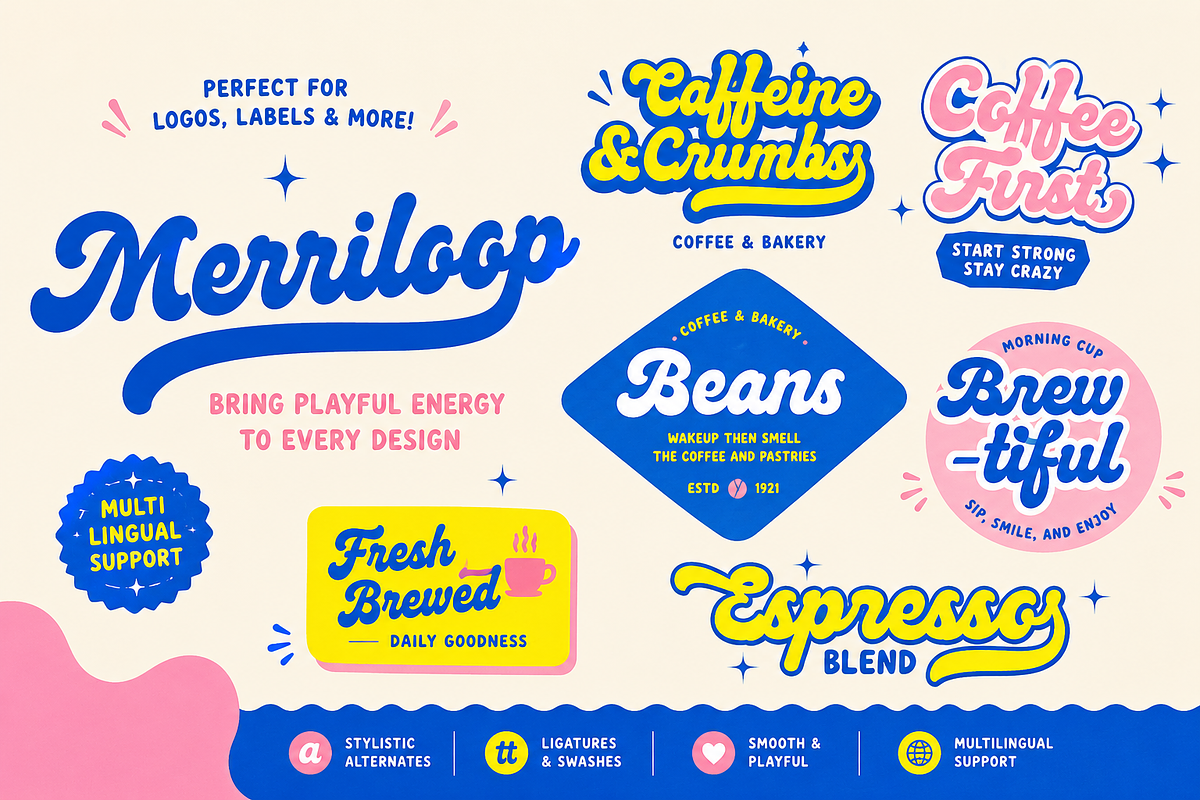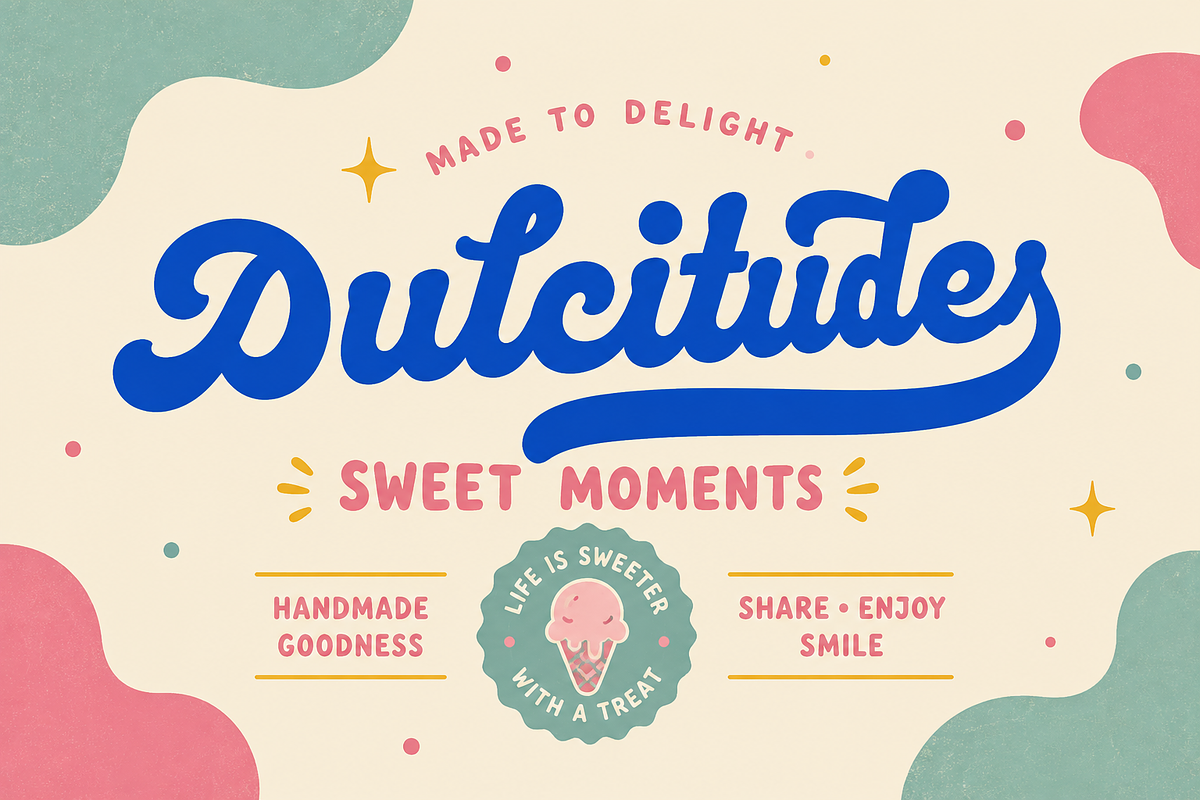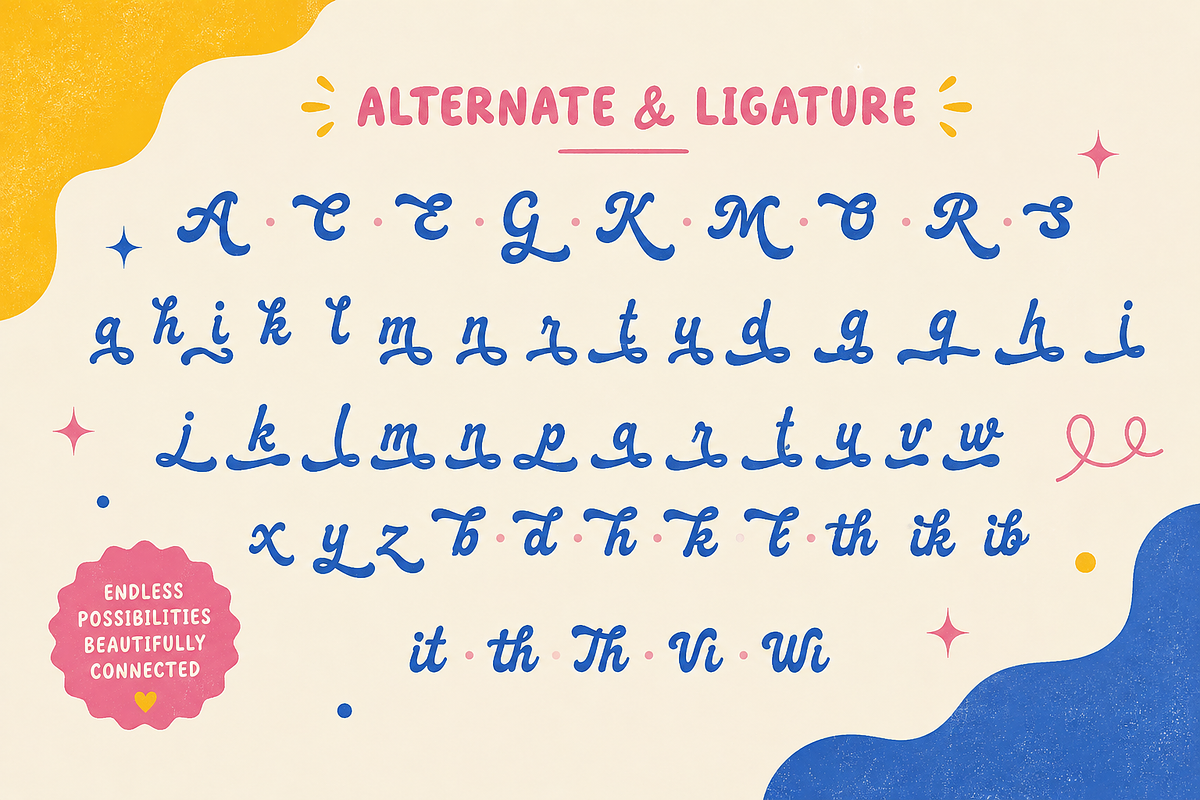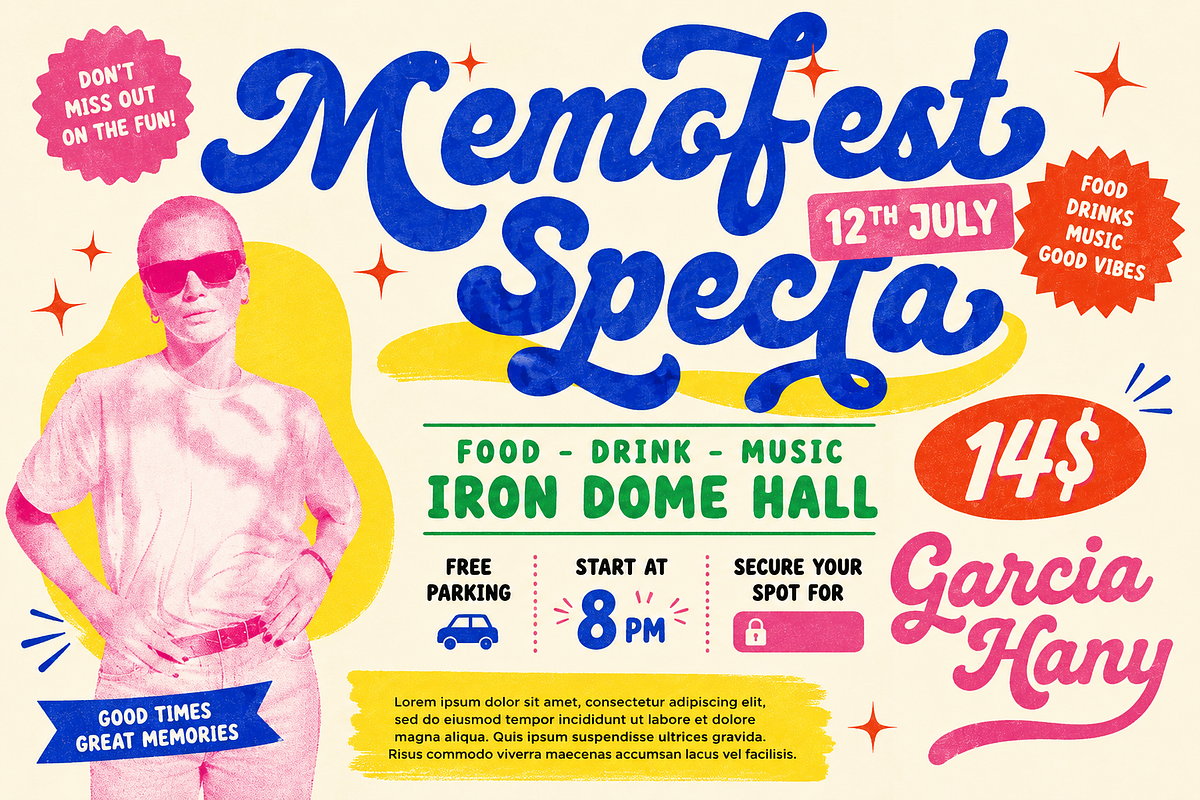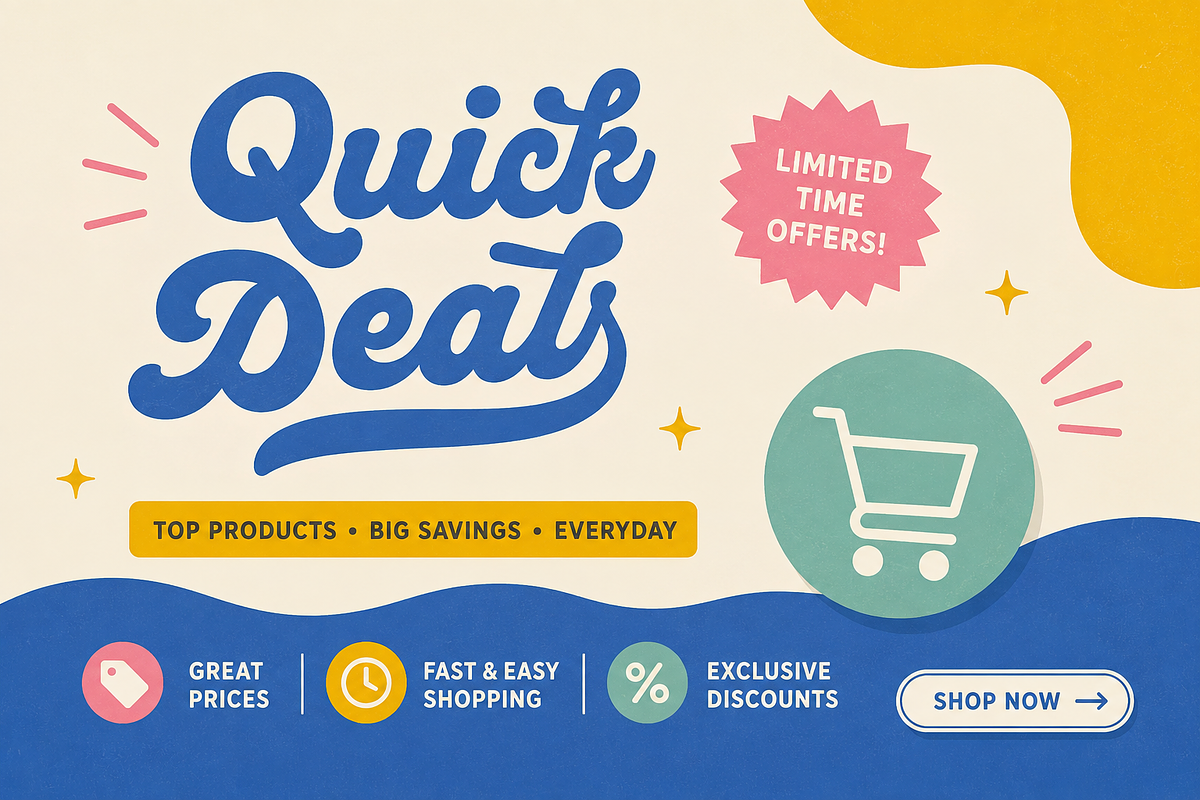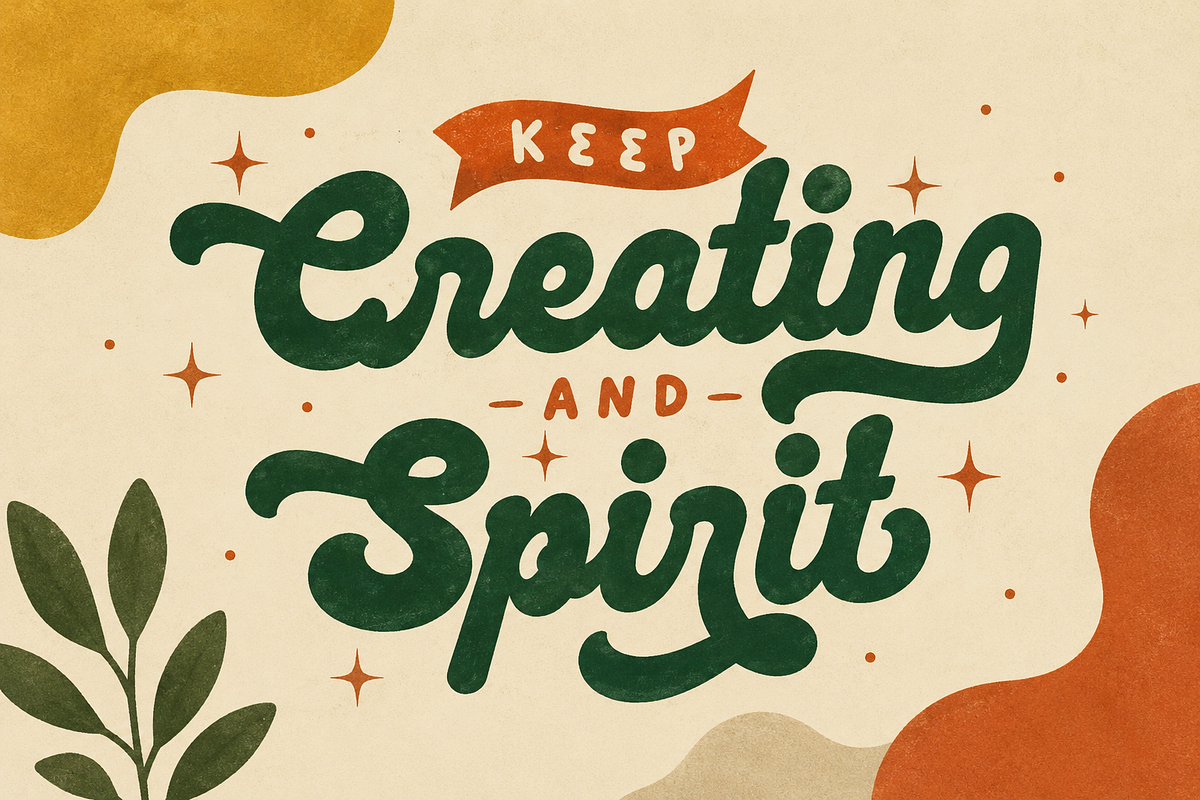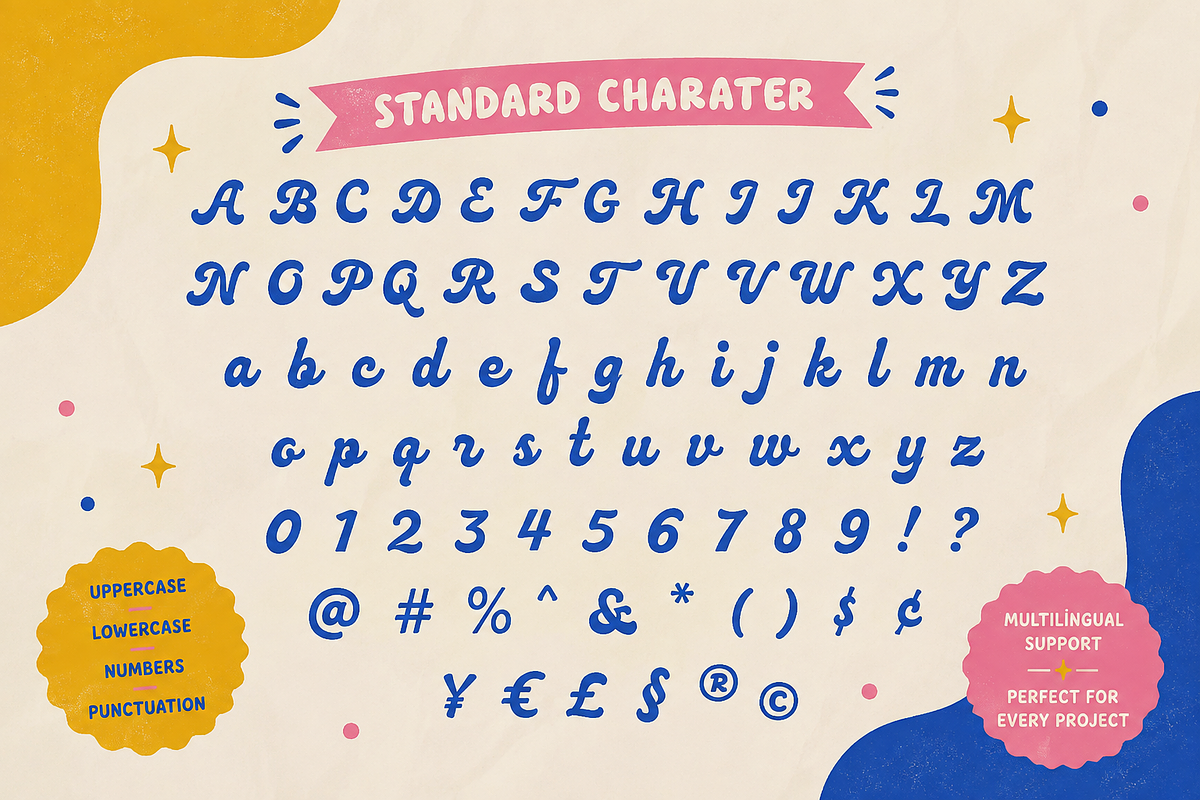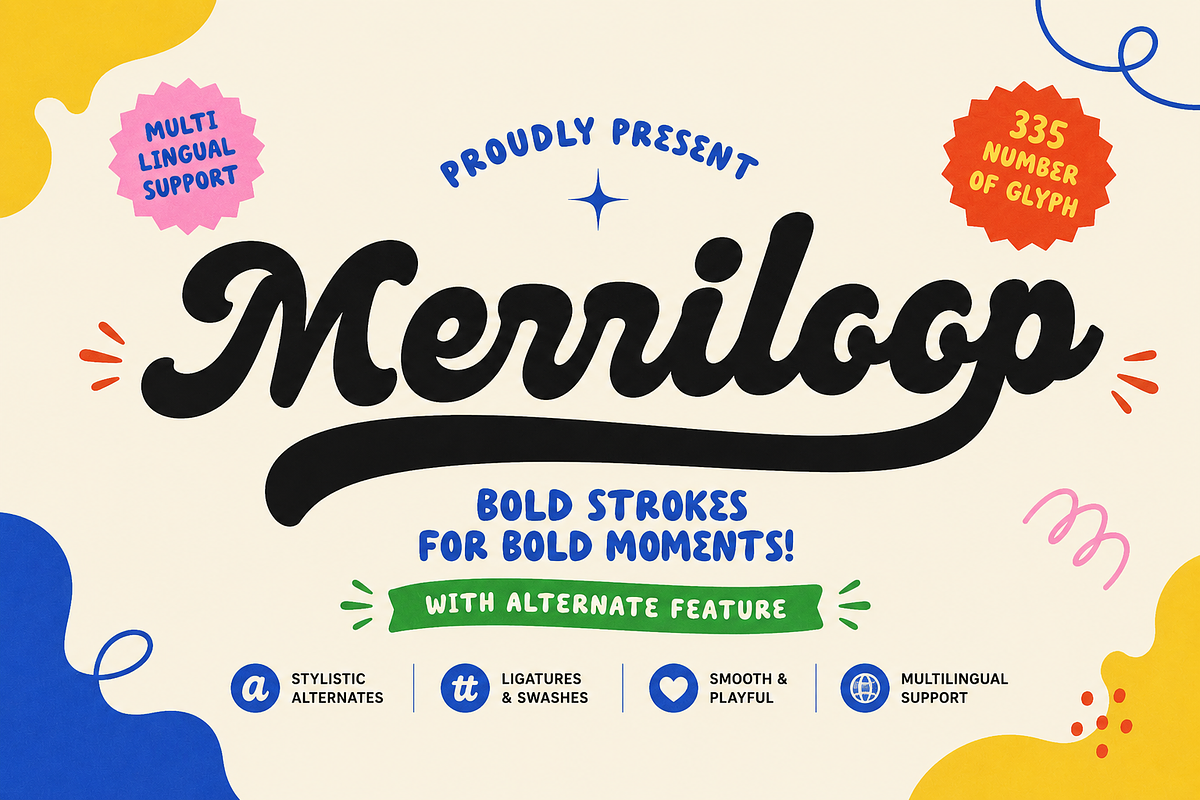
Merriloop - Bold Retro Script Font
Merriloop is a bold retro script font that leans into the loud, lovable energy of 60s and 70s sign painting, with rounded forms and a hand-lettered swing you can feel at first glance. Built for headlines that need personality, it brings groovy vintage character to logos, packaging, posters, and branding projects without ever looking dated.
OpenType alternates: three stylistic sets (ss01-ss03) plus contextual alternates let you swap letterforms so every word feels hand-set, never repetitive.
Swashes and ligatures: built-in swash characters and ligatures add that authentic sign-painting flourish with zero extra vector work.
Rounded bold forms: chunky, friendly curves that hold their shape in small print and dominate at poster scale.
Cleanly kerned: tuned spacing (GPOS kern) keeps pairs tight and even, so headlines look professional the moment you type them.
Use cases
Merriloop was drawn for logo design, signage and storefronts, product packaging and labels, menu boards, badge and emblem work, t-shirt and apparel prints, social media graphics, and poster design. If it needs to be seen from across the room, this is the font for it.